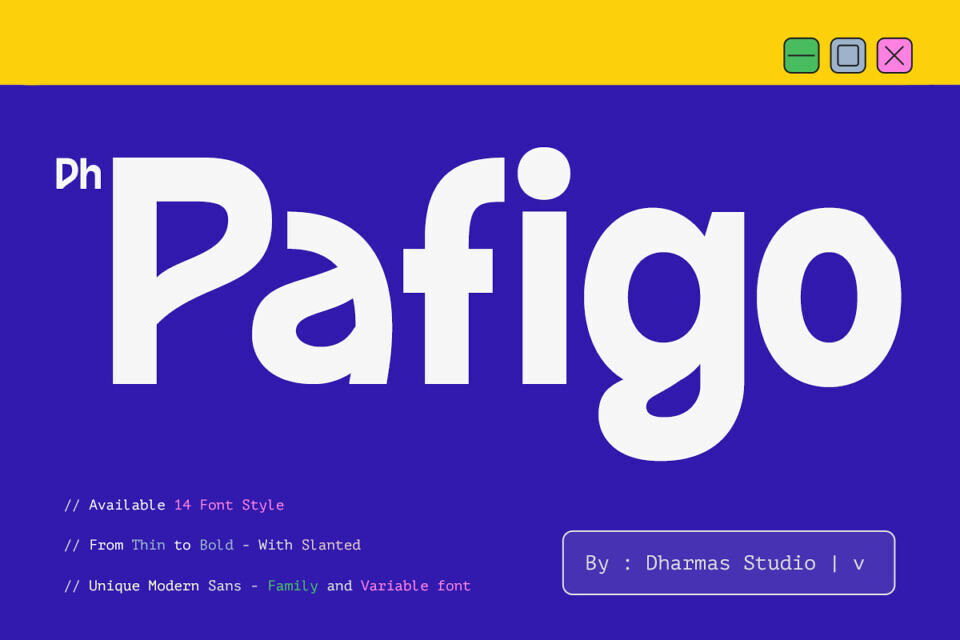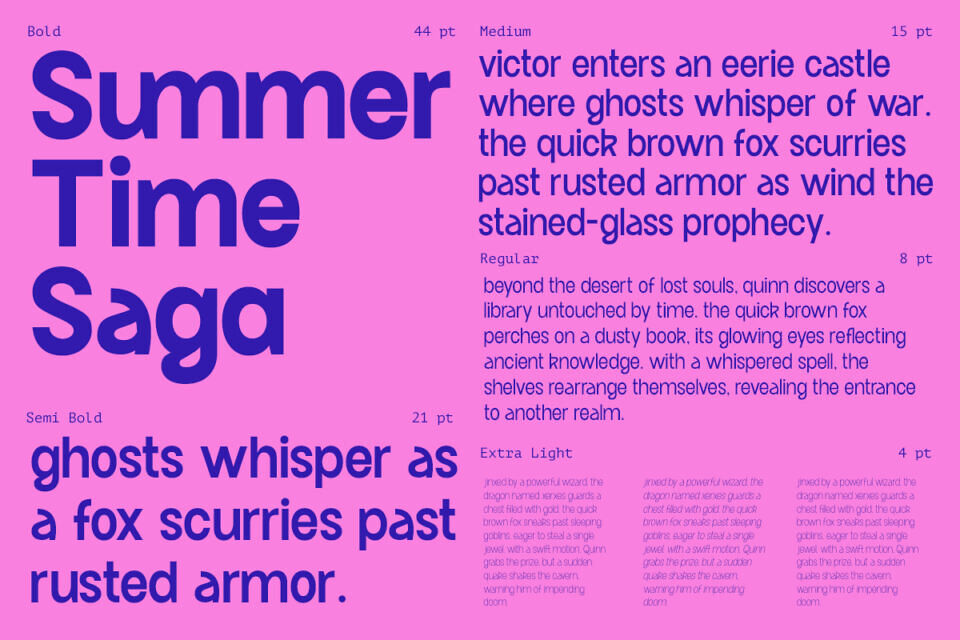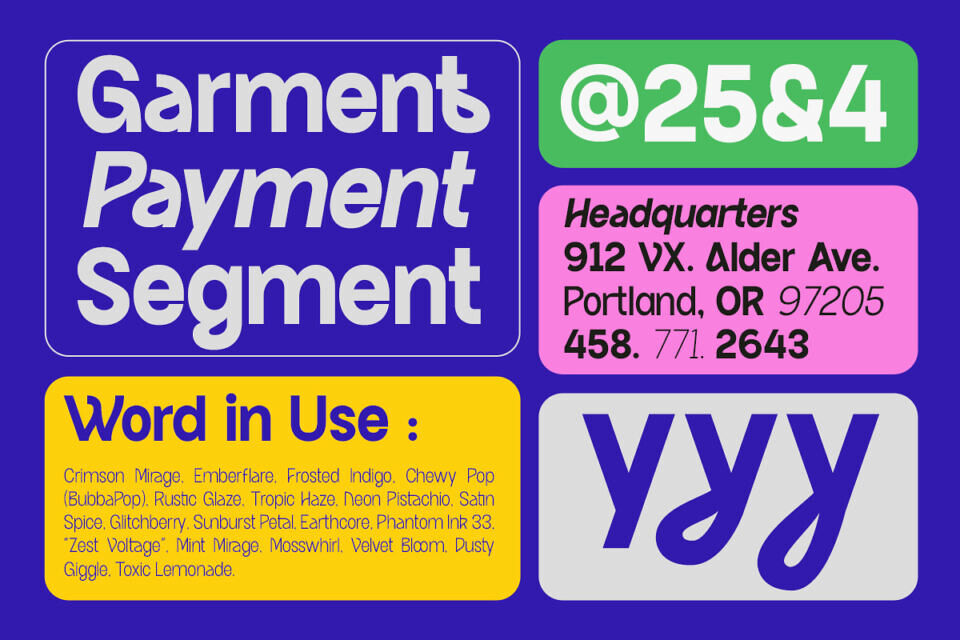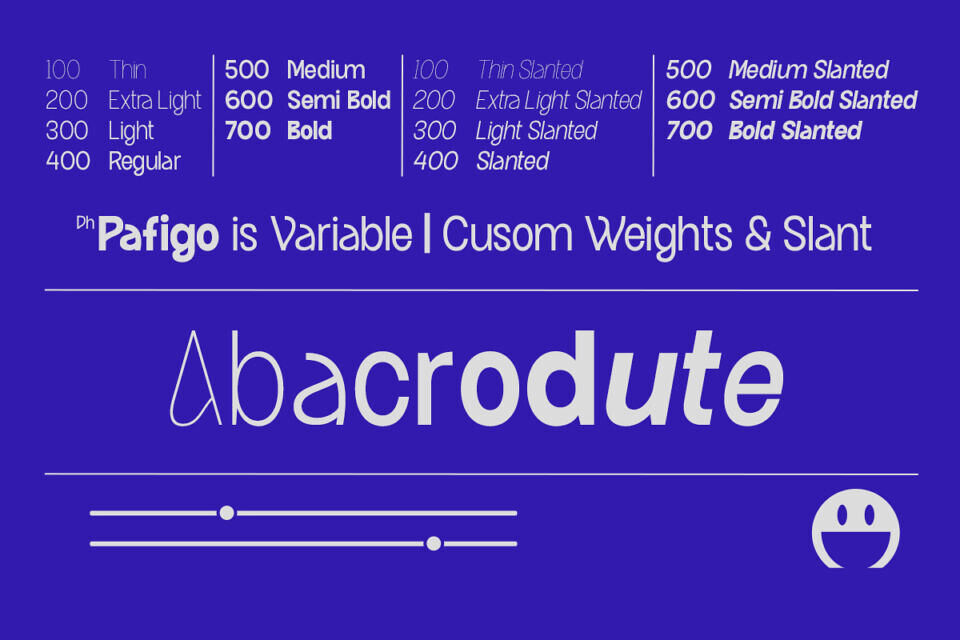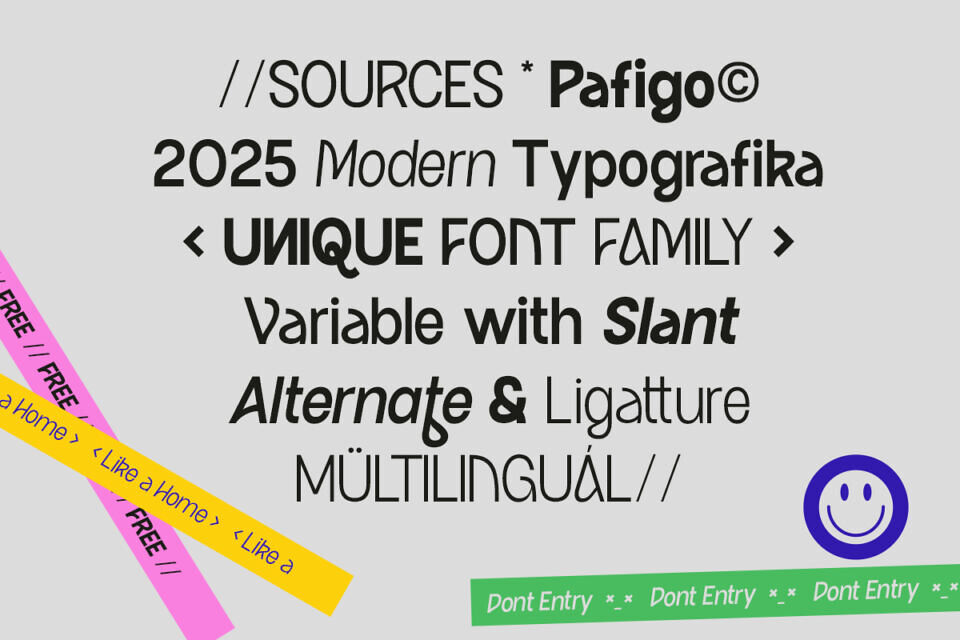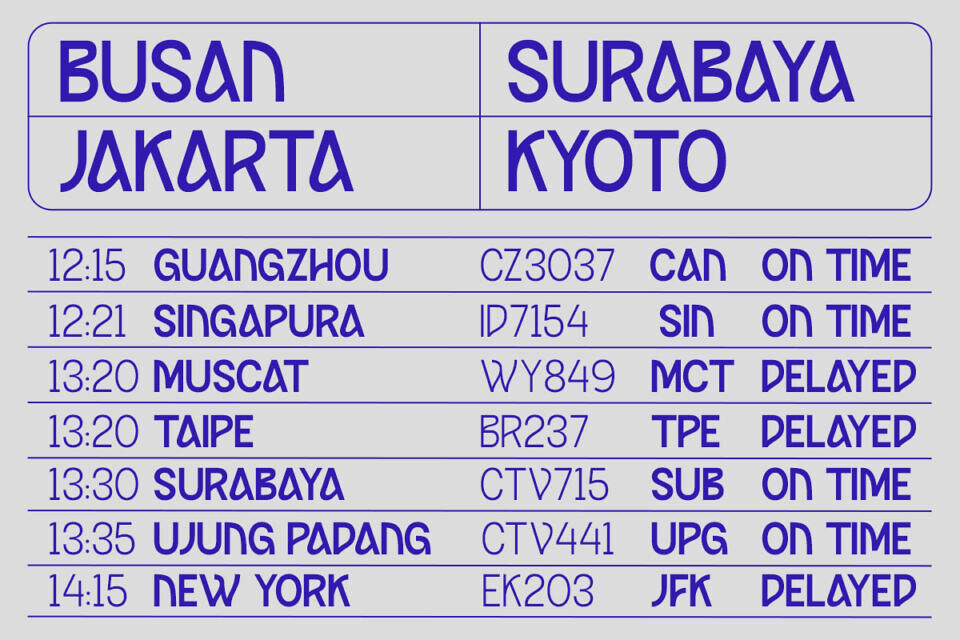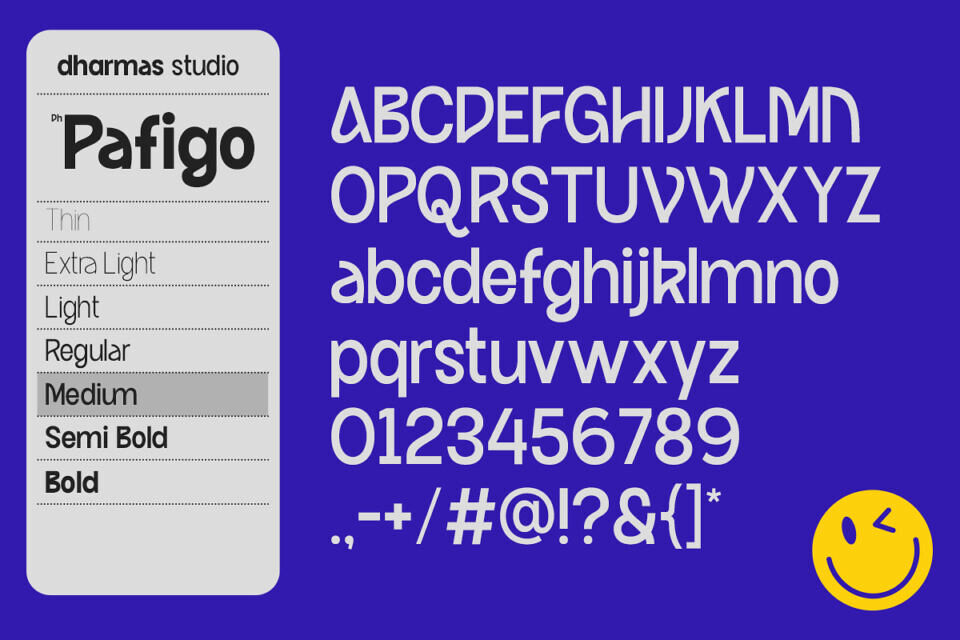
Dh Pafigo is a modern sans serif typeface with a clean, rounded design that blends geometric structure with a friendly tone. Designed for bold branding, digital content, packaging, and editorial use, its 14 styles and 48+ alternates give designers creative control. Dh Pafigo stands out for its balance between clarity and charm—perfect for confident, expressive brands.
Built for brands that want to feel bold yet approachable, Dh Pafigo is ideal for lifestyle, tech, and editorial design. With multilingual support, Canva compatibility, and OpenType features, it’s a go-to font for global creatives who value both style and substance.